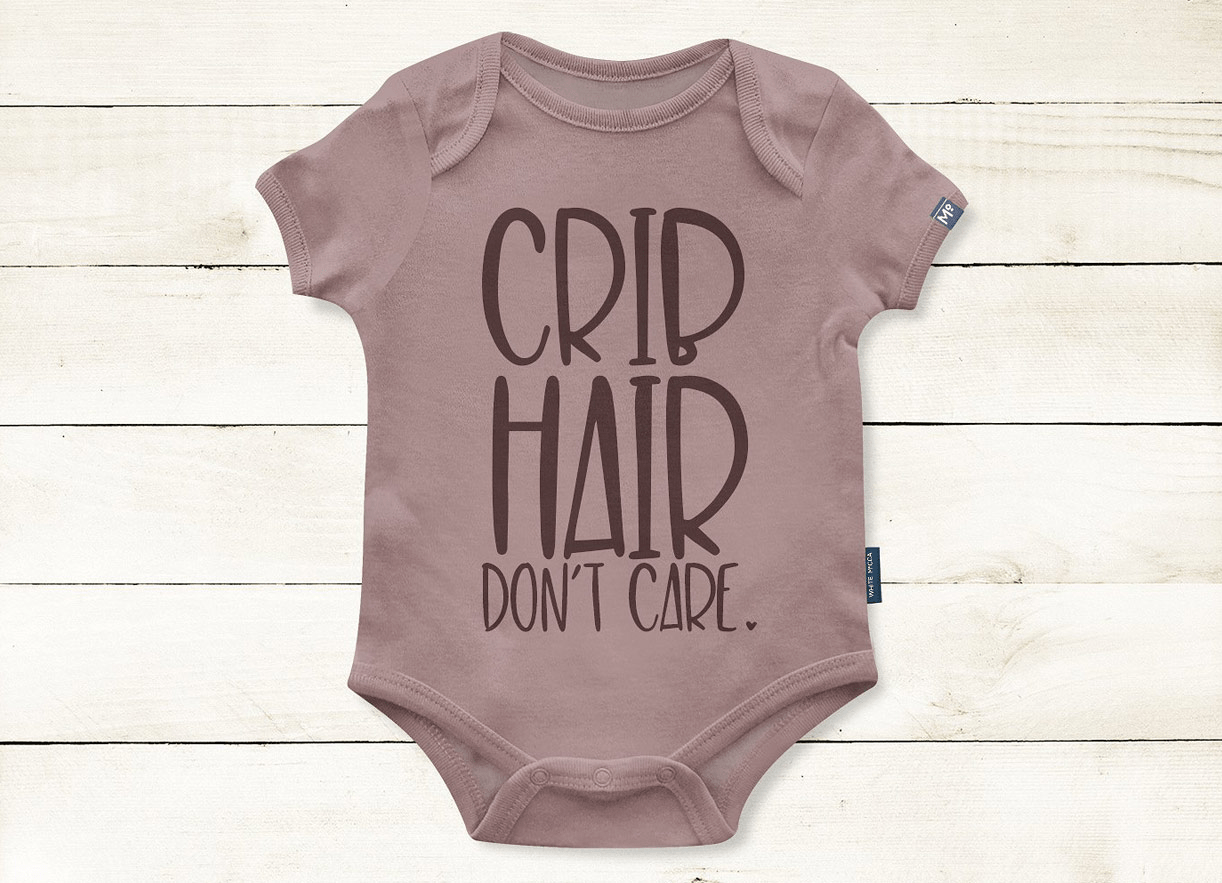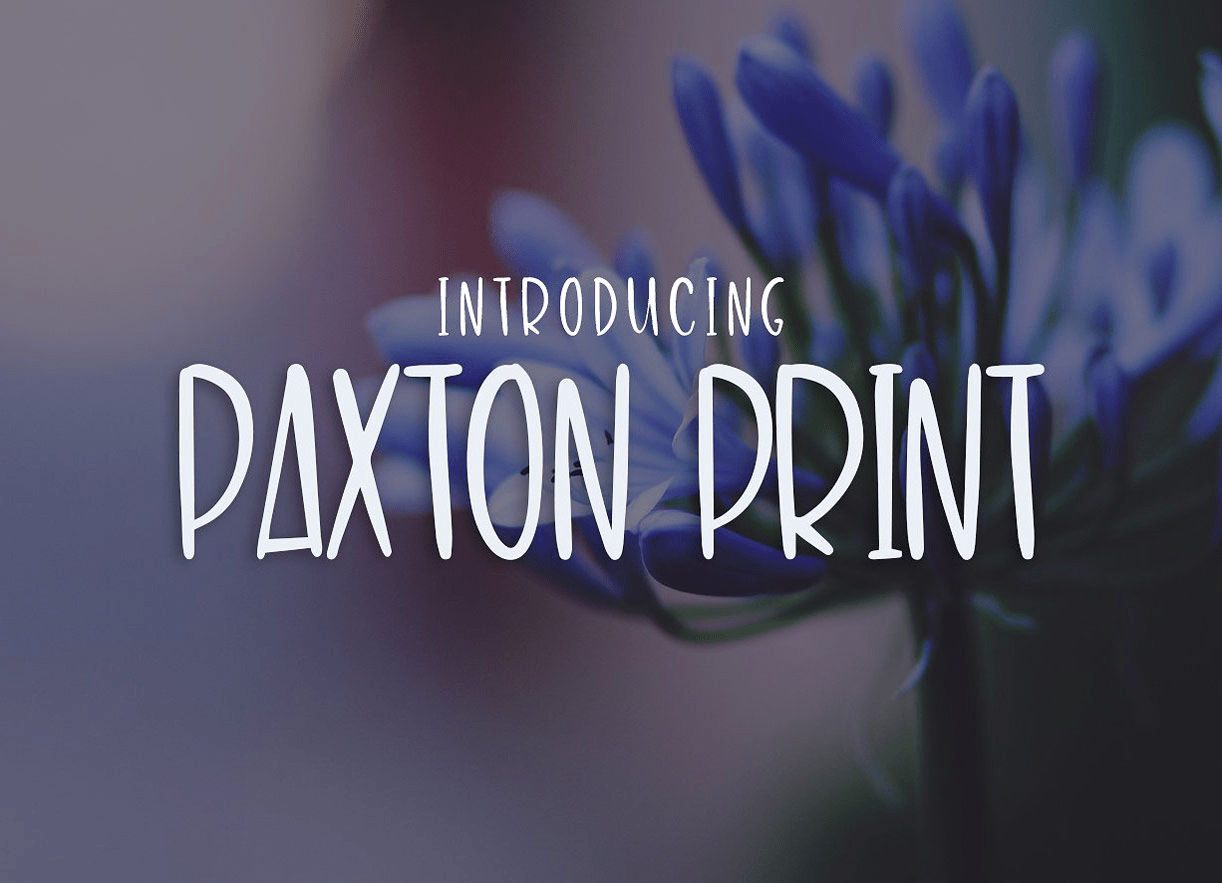
HomeFont BrosHandwrittenPaxton Print Handwritten Paxton Print FacebookXPinterestWhatsApp 1 of 2 About Paxton Print Meet Paxton Print! An all uppercase quirky font great for tees, logo design, journaling and more!  DOWNLOAD NOW People also explored Heart Beats Font Luckmeister Marsheilla Font White Bag Mockup,tote Bag Mockup Canvas Asturo Ribbon Font Mochaciattos Font Just Overthink Font Mitha Monogram Font Jasmine Font 217 0 TagsPaxton Print Font Previous articleCinemascopeNext articleSchwandner Ornaments LEAVE A REPLY Cancel reply Comment: Please enter your comment! Name:* Please enter your name here Email:* You have entered an incorrect email address! Please enter your email address here Website: Save my name, email, and website in this browser for the next time I comment. Personal Use Free Mallvirra Personal Use Free Read more about this font Mike Ferrari 16017 Personal Use Free Read more about this font Rozalyn Personal Use Free Read more about this font Twisty Girlz Personal Use Free Read more about this font BLOG Best Fonts for T-Shirt Design – Top 2025 Picks In 2025, t-shirt design has become more than just fashion—it's a form of self-expression. Whether you're... Best Fonts for YouTube Videos: Make Your Thumbnails Stand Out Modern Sans-Serif Fonts That Brands Love in 2025 The 10 Best Handwriting Fonts to Add Personality to Your Designs